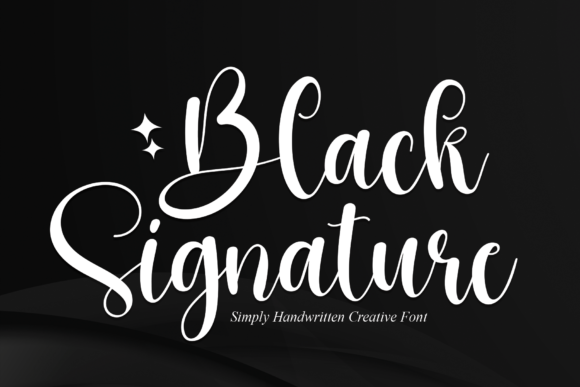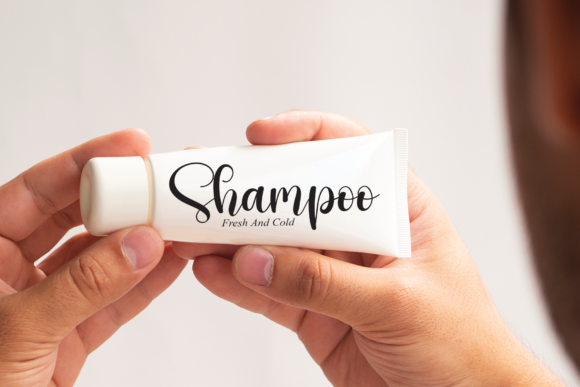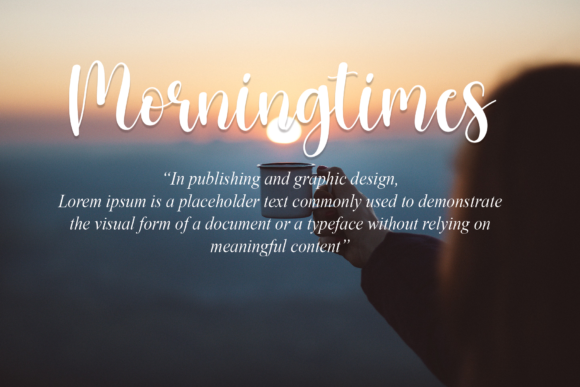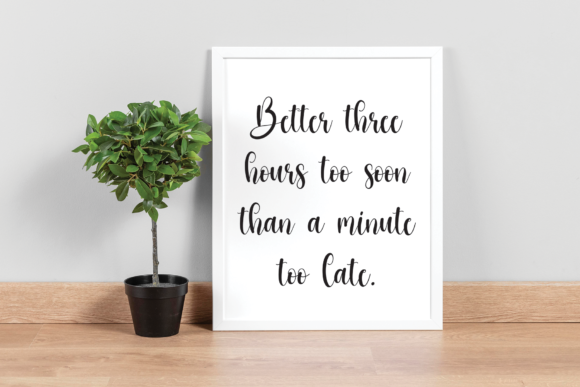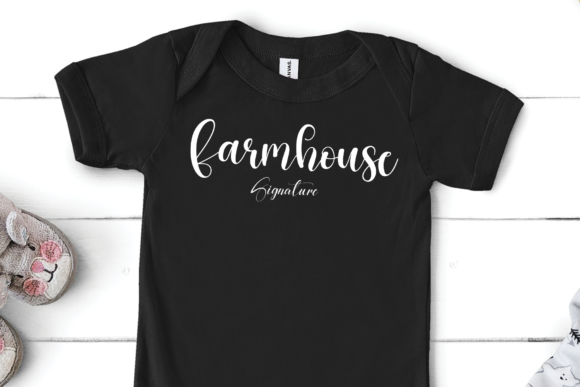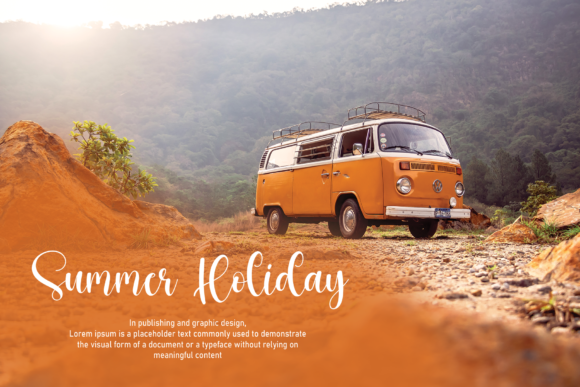
About Black Signature Font
Black Signature is a sweet and cursive handwritten font. This gentle font will look gorgeous on a variety of design ideas. It will add a joyful and romantic touch to each of your projects!